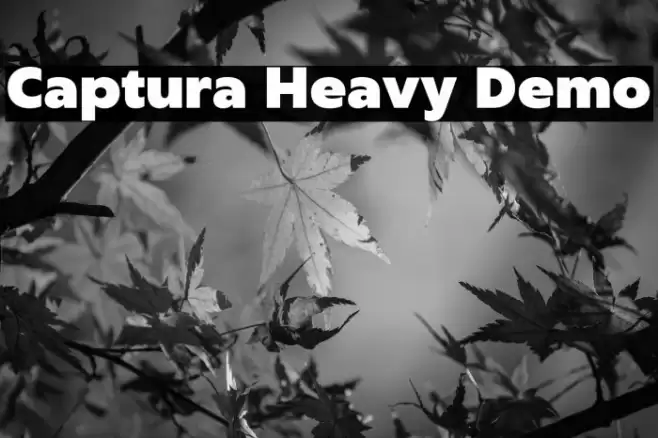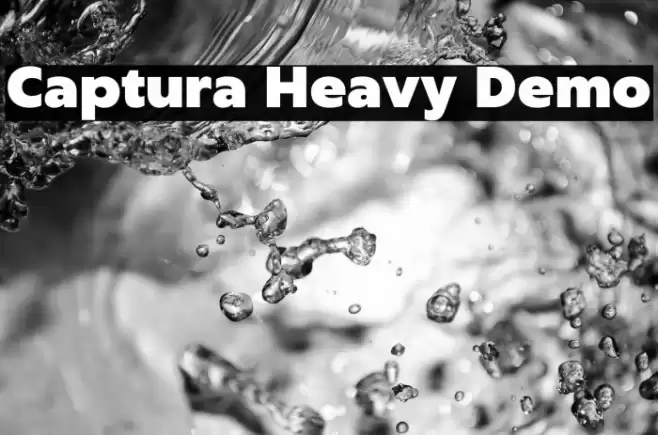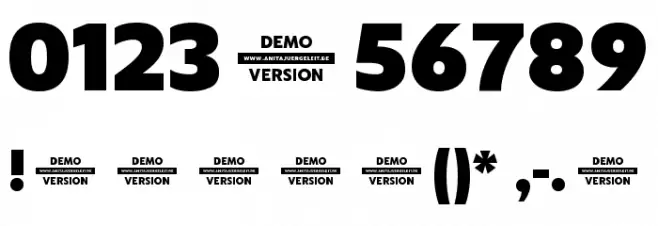
Captura Heavy Demo Font
Captura Heavy Demo Description
This font features a bold and strong appearance, characterized by thick strokes and a solid presence. The uppercase and lowercase letters are designed with a uniform width, creating a cohesive and balanced look. The numerals are equally bold, ensuring they stand out clearly. The special characters maintain the same weight and style, providing consistency across all elements. This font is ideal for making a statement, with its heavy and impactful design that draws attention.
A bold and impactful font with thick strokes and a strong presence from Regular fonts.
- Proposed Projects: Ideal for headlines, posters, branding, and any project requiring a bold statement.